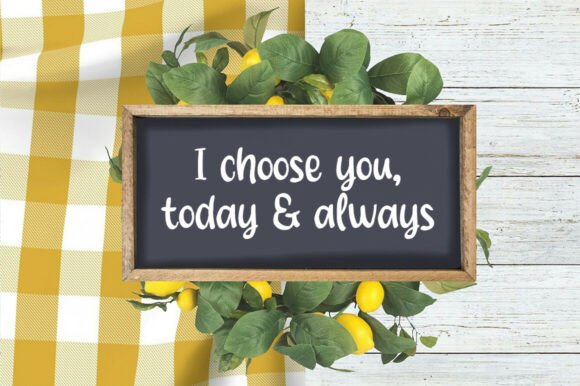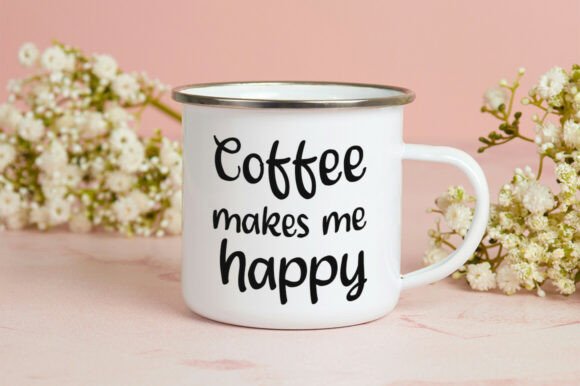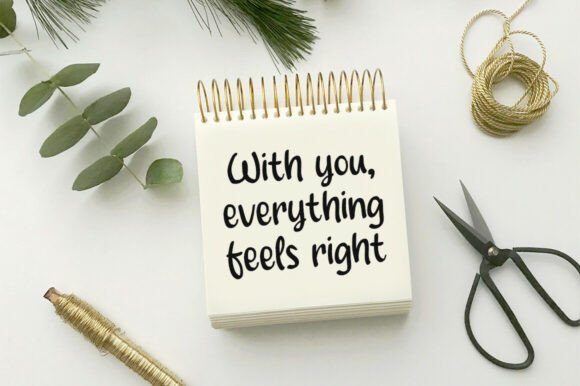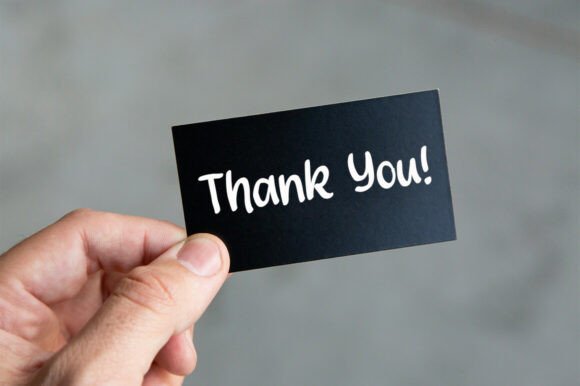
Introduction to Meliona Font
Meliona font is a rhythmic, brush-style script that brings a sense of movement and artistry to every design.
This fluid Meliona typeface mimics the motion of a marker on paper, offering a balanced weight that is neither too heavy nor too light Perfect for lifestyle brands, beauty packaging, and creative portfolios, the Meliona font provides an instantly recognizable โdesignerโ feel.